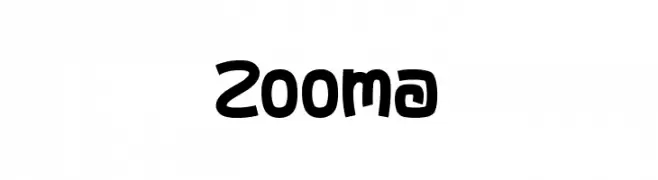
A bold, textured font with a distressed, hand-painted appearance.
A bold, decorative symbol font with a scorpion motif.
A bold, block-like font with strong geometric shapes and an impactful presence.
A bold, playful font with quirky, rounded characters and a whimsical style.
A futuristic, geometric font with sharp angles and a bold style.
A futuristic, geometric font with sharp angles and bold presence.
A playful, hand-drawn 3D effect font with bold outlines and a whimsical style.
A futuristic, geometric font with bold, angular shapes and uniform spacing.